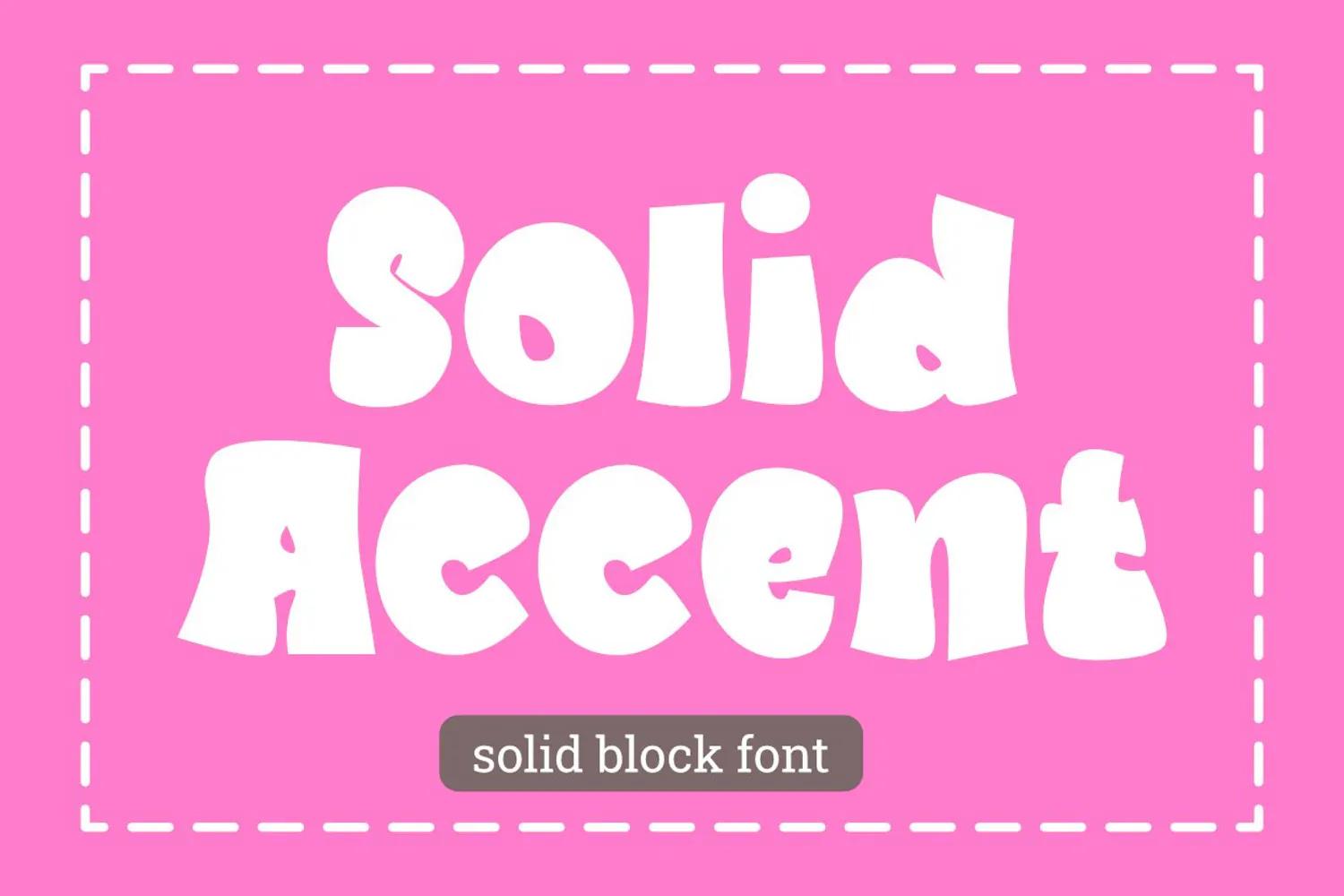
Solid Accent Font Display Make a powerful statement with this bold handwritten display font. Raw, organic strokes blend casual charm with heavy impact, perfect for eye-catching branding and packaging.